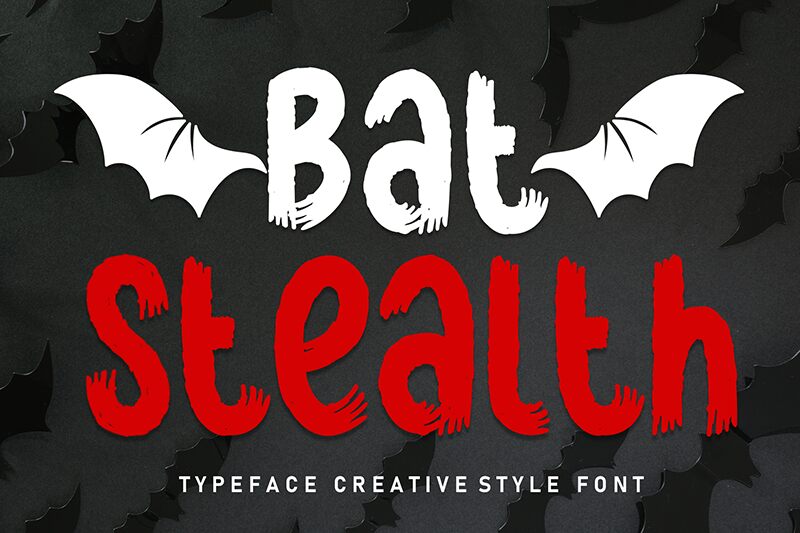
Bat Stealth font designed by Andi Moz is a quirky free font with a twist! The abstract type design features both uppercase and lowercase letters alongside numbers and special characters. The varied shapes consist of curvy and wavy lines, resulting in letters whose shapes stand out individually.
Being abstract, Bat Stealth’s irregular characters display different moods and personalities. They are perfect for modern poster design, school and college newsletters titles, song or event name design, arts & craft projects, designed social media posts, comics, and story covers.
This is a sweet and friendly handwritten display font. Cute and fun, this font is ideal for writing wedding invitations, cards, or any other design that might need a playful touch!